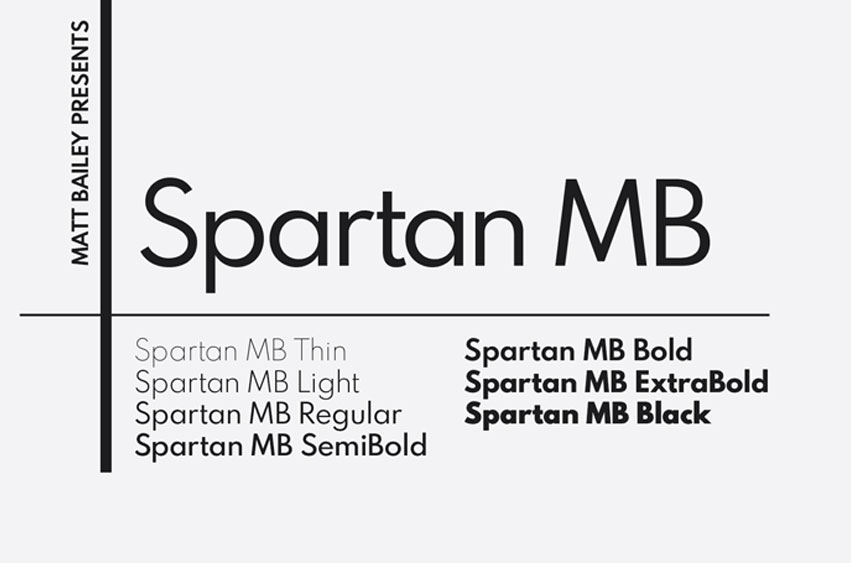
Spartan MB Font is a free 7 weight family based on a single, bold weight. Introducing Spartan MB Font Family! Spartan MB designed and shared by Matthew Bailey.
Spartan MB font is a sans serif type of bold and thin type. Spartan MB it’s perfect for , poster, logo, magazine, cover, banner, tshirt and headers, or even large-scale artwork.